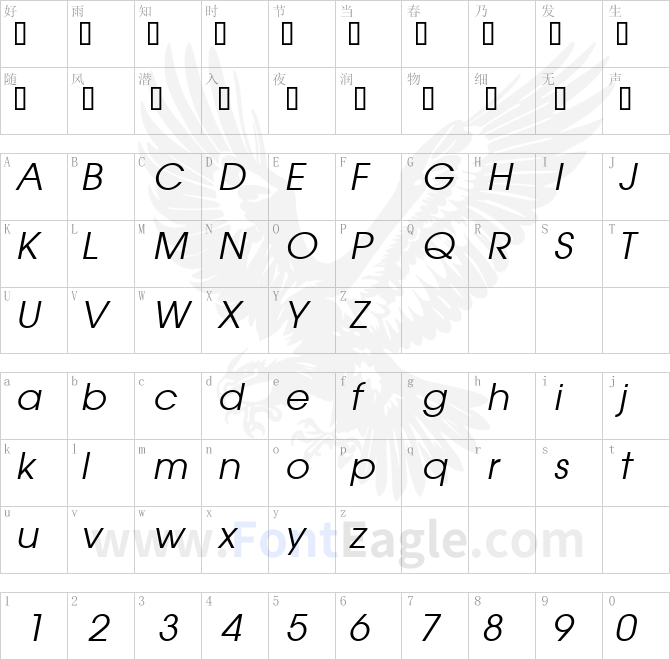
- Font name:ITC Avant Garde Gothic
- Font Subfamily:Livret Oblique
- Font Subfamily ID:Hewlett-Packard: ITC Avant Garde Gothic Book Oblique: Version 1.3 (Hewlett-Packard)
- Font Full Name:ITC Avant Garde Gothic Livret Oblique
- Font Version:Version 1.3 (Hewlett-Packard)
- Postscript:AvantGarde-BookOblique